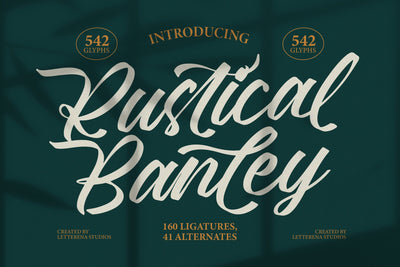
Rustical Banley - Modern Script Font
Rustical Banley - Modern Script Font , from Letterena, is a Luxury Script font, suitable for any projects such as: logos, branding projects, homeware designs, product packaging, mugs, quotes, posters, shopping bags, t-shirts, book covers, name card, invitation cards, greeting cards, label, photography, watermark, special events, and all your other luxury and beautiful projects that need a Luxury Script taste.
160 Ligature 41 Alternate & Swashes